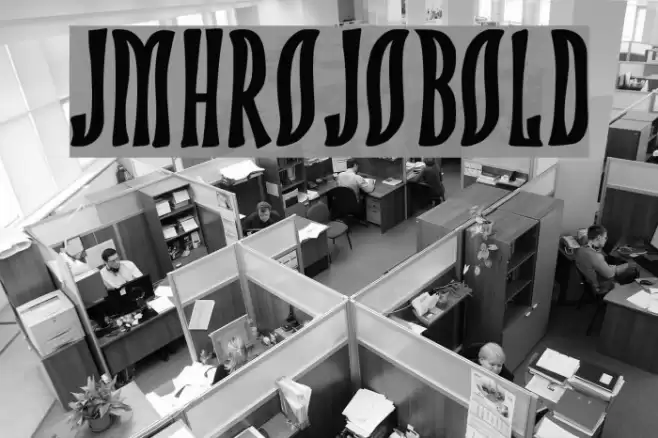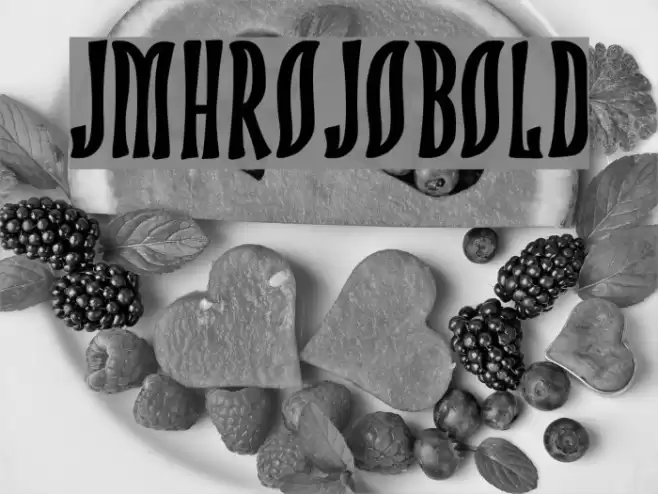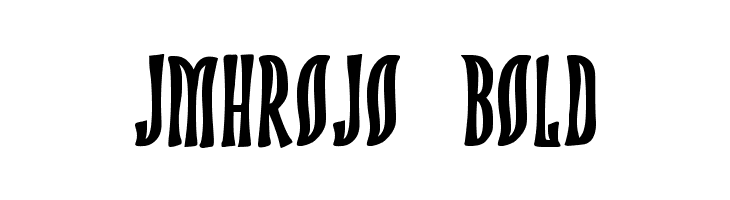
JMHROJO-Bold Font
JMHROJO-Bold Description
This font features a bold and dynamic style with a strong presence. The characters are tall and narrow, giving them a condensed appearance while maintaining a sense of elegance and flair. The strokes are thick and consistent, providing a high contrast that enhances readability and impact. The overall design is modern with a touch of vintage charm, making it suitable for a variety of creative applications. The unique curvature and angles of the letters add a distinctive personality, making it ideal for eye-catching headlines and display purposes.
A bold, condensed font with high contrast and a modern vintage flair from Antiques fonts.
- Font: JMHROJO-Bold
by joorgemoron - Weight: Bold
- Proposed Projects: Ideal for posters, branding, logos, and headlines that require a strong visual impact.
- Character Spacing: Tight
- Overall Style: Modern Vintage